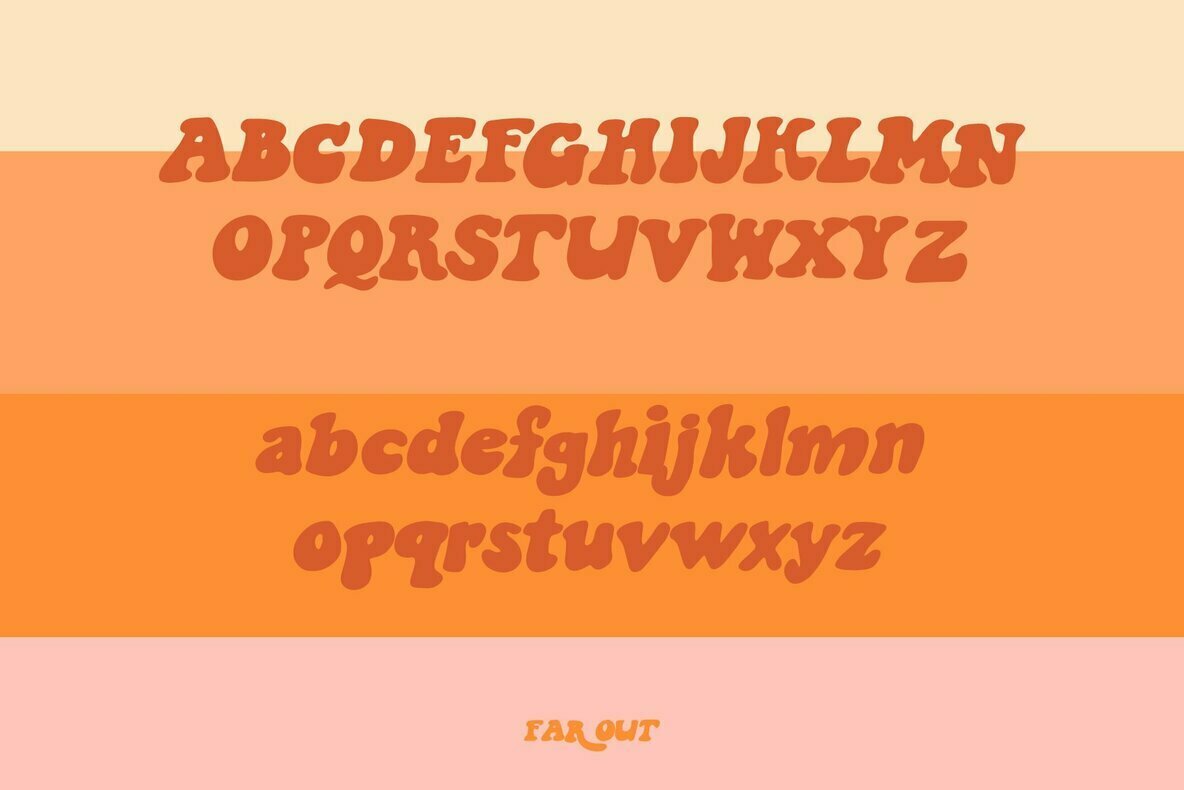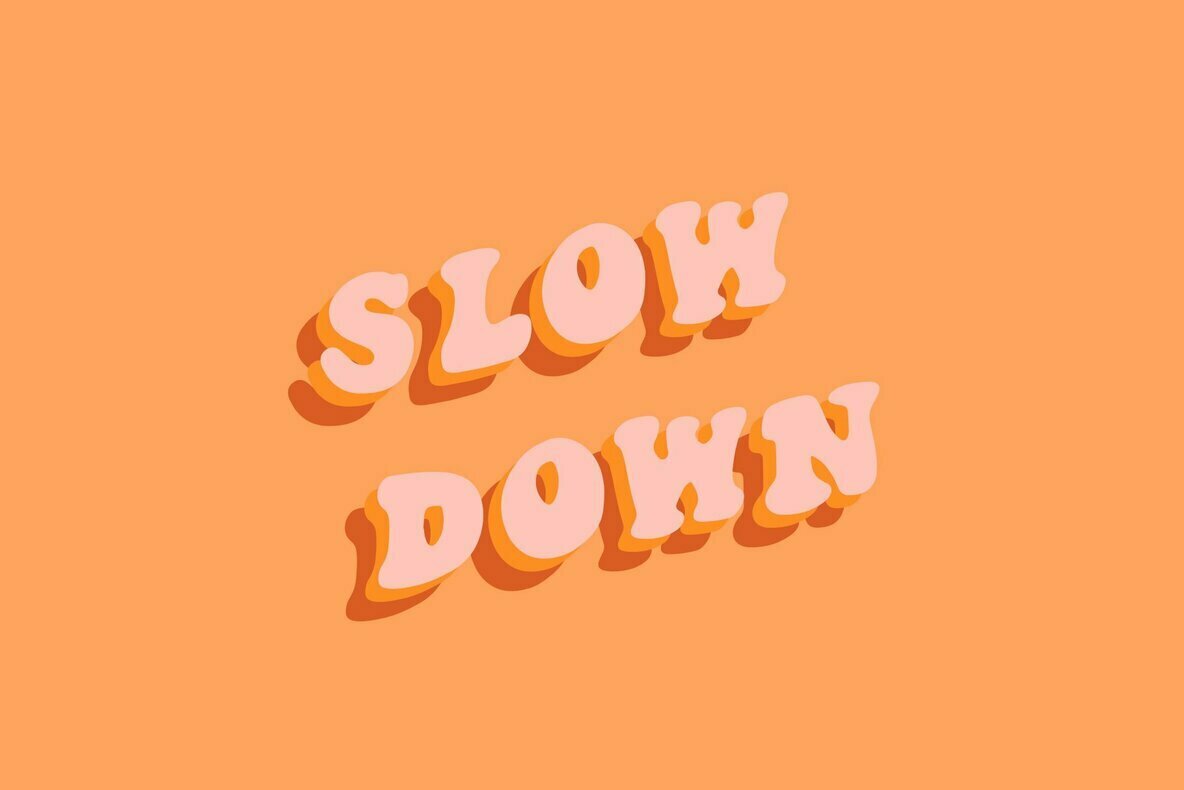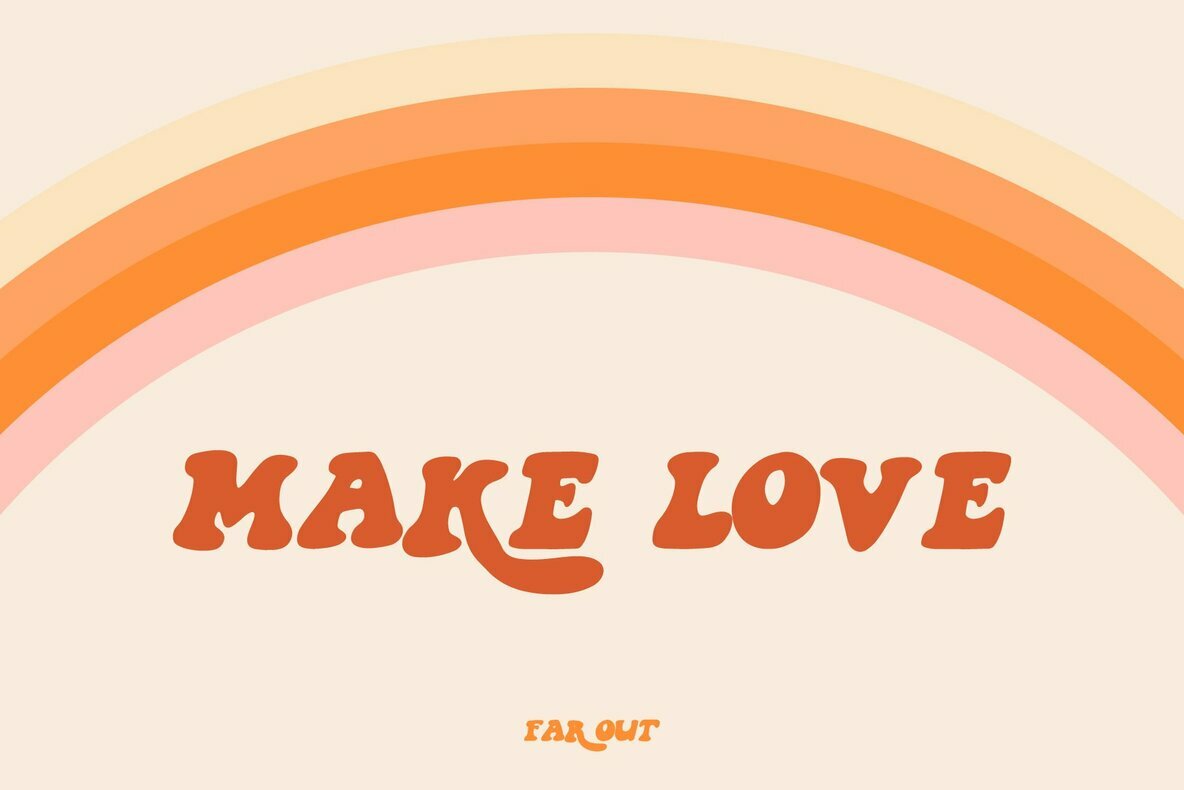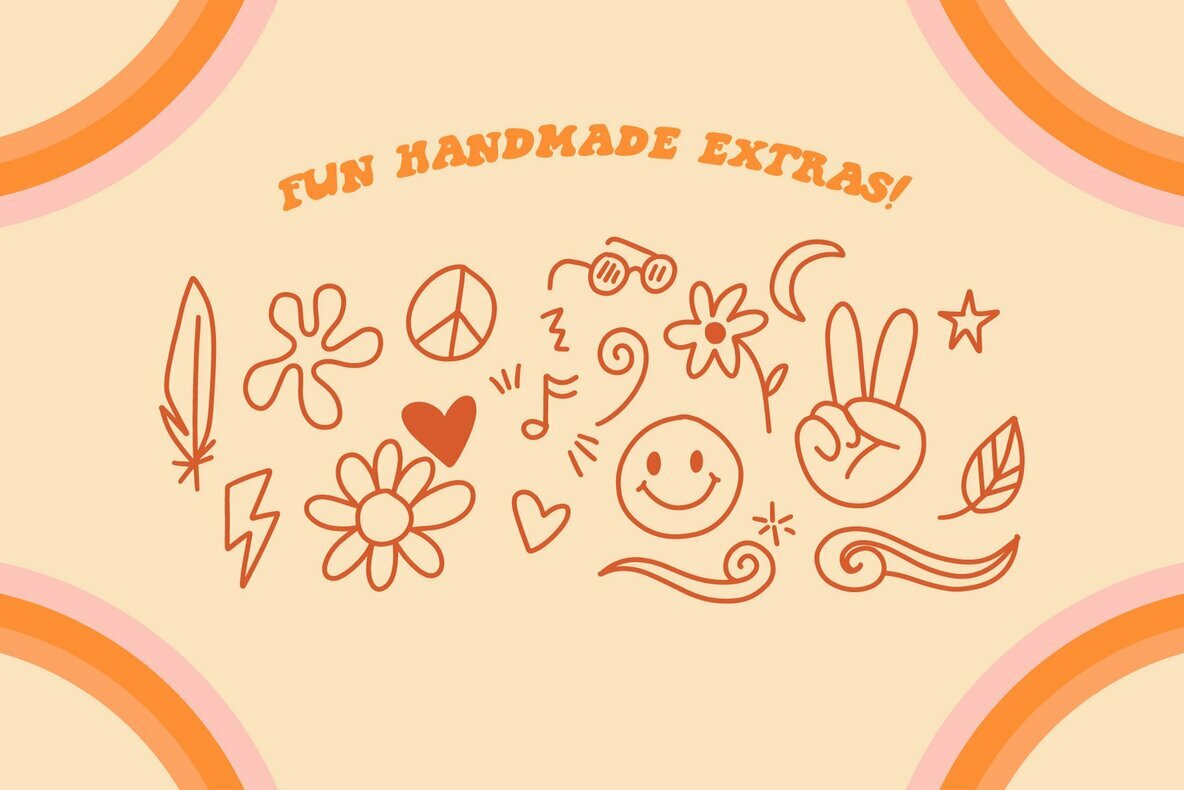
Far Out Font
Far Out Font and Extras (1 font)
Step back in time with Far Out, a font inspired by the free-spirited Flower Children of the 1960s and 70s. This unique typeface captures the vibrant essence of that era, making it an ideal choice for adding a dash of retro flair to your designs.Far Out: A Groovy Font Inspired by the 60's and 70's